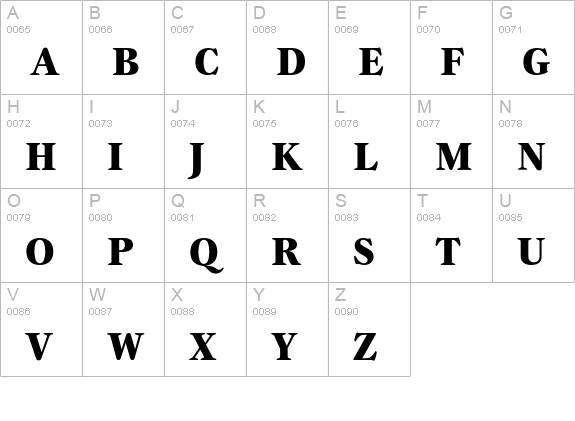
GammaEF-Black is a maximum-weight, dramatic variant in the GammaEF typeface family \xE2\x80\x94 well suited to maximum-impact headlines, posters, and packaging.
Introducing GammaEF-Black, a sleek and modern font that exudes sophistication and style. With its bold and powerful letterforms, GammaEF-Black captures attention and commands a presence on any design project. This versatile typeface is perfect for headlines, logos, branding materials, and much more. The unique characteristics of GammaEF-Black make it stand out from the crowd. Its clean lines and sharp edges give it a contemporary and professional look, while its generous spacing ensures legibility even at smaller sizes. Whether you're designing for print or digital media, GammaEF-Black will make a lasting impression. One of the best things about GammaEF-Black is that it is available for free! You can easily download this stunning font at FontsMarket.com, a trusted source for high-quality fonts. Whether you're a professional designer or a hobbyist looking to add a touch of elegance to your projects, GammaEF-Black is the perfect choice. The free availability of GammaEF-Black allows designers of all levels to access a premium font without breaking the bank. Say goodbye to expensive licensing fees and hello to creative freedom. With GammaEF-Black, you can bring your design visions to life without any limitations. So why wait? Download GammaEF-Black today and elevate your design projects to new heights. Its timeless appeal and modern aesthetic will make your work shine. Don't miss out on this incredible opportunity to enhance your designs with a font that combines elegance, versatility, and affordability. Get your hands on GammaEF-Black now, only at FontsMarket.com.